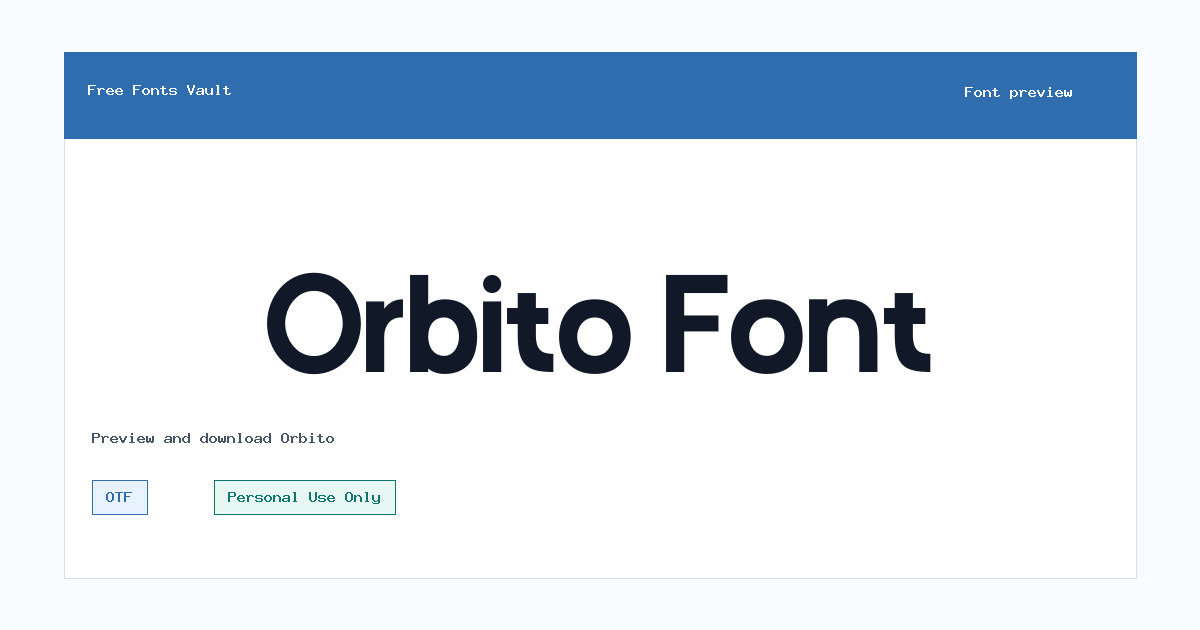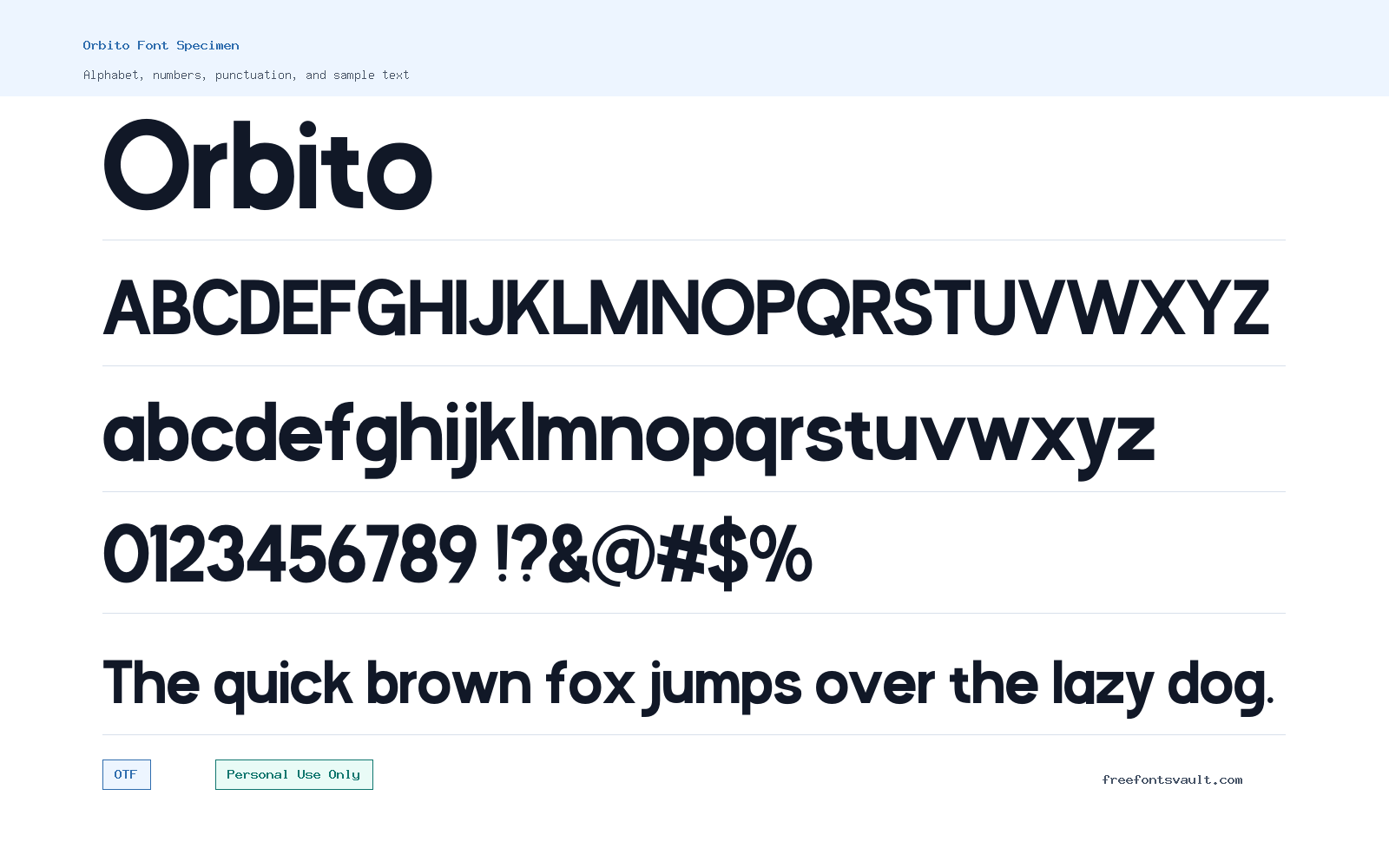
Orbito
- Designer Annisa Febriani
- Foundry Masyafi Studio
Orbito font.
About Orbito Font
Orbito is a straightforward choice when you need a clean sans serif voice for display text, titles, social graphics, personal posters, or mockups. Because only the regular weight is included, it works best when the design does not depend on a large family with many weights. Test it in the preview with the exact words you plan to use, especially if your layout needs tight spacing, all caps, or mixed numbers and punctuation. A single regular style can still be useful, but it asks you to handle contrast through size, color, spacing, and layout rather than switching between light, bold, or italic styles.
Use Orbito where clarity matters more than complex typography. It can suit short headings, nameplates, simple branding drafts, quote cards, labels, and presentation covers for personal work. For longer paragraphs, preview a few full sentences before committing; many display-focused sans serif fonts look better in short lines than in dense body copy. Pair it with a neutral text face if you need readable paragraphs below a headline. Keep the design simple at first: try generous letter spacing for uppercase text, avoid crowding small captions, and check how the font behaves at both large and mobile sizes before downloading.
- Sans serif family suited to short, clean display settings
- Personal posters, social media graphics, quote cards, and presentation titles
- Logo drafts, headings, labels, and other short text where one regular style is enough
Orbito is credited to designer Annisa Febriani and foundry Masyafi Studio.
Who designed Orbito?
Orbito is credited to Annisa Febriani, with Masyafi Studio listed as the foundry.
What is Orbito best used for?
It is most practical for short personal-use text such as headings, posters, social graphics, presentation covers, labels, and design drafts. Test longer text carefully before using it as body copy.
Does Orbito include bold or italic styles?